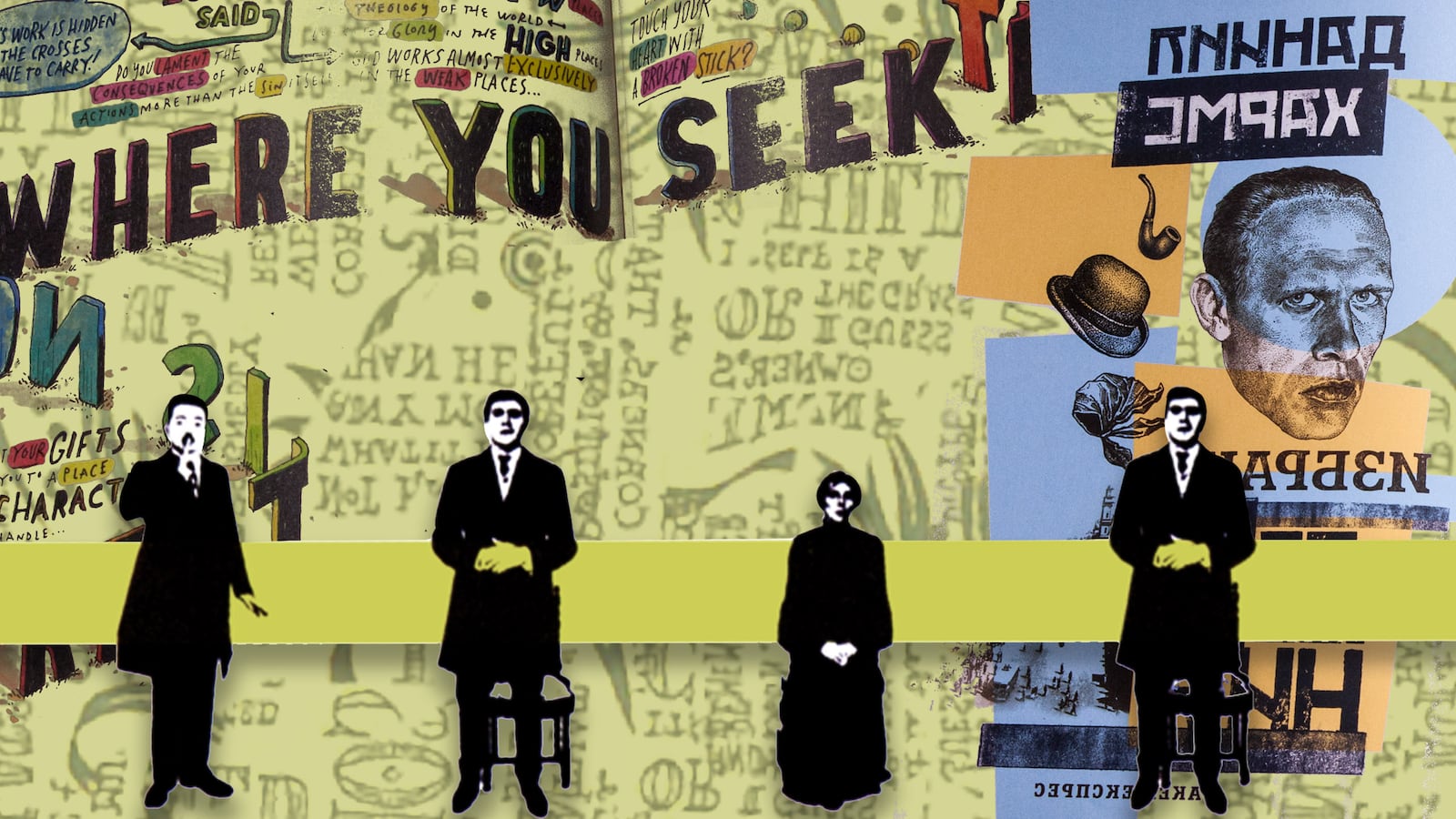
When Typefaces Want to Get in on the Storytelling Action
Steven Heller and Gail Anderson talk about their new book, ‘Type Tells Tales,’ a fascinating tour of books in which typefaces plays an active part in visual storytelling.
Thanks to those drop-down menus on our computers, everyone knows all about fonts these days (except how to properly use the word: the word we want is typeface; fonts are the subdivisions within a typeface—italic, bold, and so on). But not to get too pedantic about it, we do know more—we are more aware—about the letters we use to form words than any previous generation.
But no matter how intense your passion, know this: Steven Heller and Gail Anderson were there long before you and have both probably forgotten more than you will ever know about type and how it works. Heller was the art director at the New York Times Book Review for three decades and with Anderson, a noted designer and creative director of the New York’s School of Visual Arts, has created numerous books exploring the world of the printed word.
Their latest book, Type Tells Tales, takes us on a gorgeous tour of the ways type can be integrated so thoroughly with text that the type itself helps tells the story at hand. In the examples they have chosen—by artists and designers as disparate as the surrealist Francis Picabia to contemporary author and artist Maira Kalman—you cannot conceive of these works without the typefaces involved, so thoroughly are they integrated into the concept of the plays, essays, stories, songs, and, in one case, a man’s jacket (the words are lettered on the lining). If you’re a type lover, this book is like Christmas, Valentine’s Day, and your birthday all rolled into one.